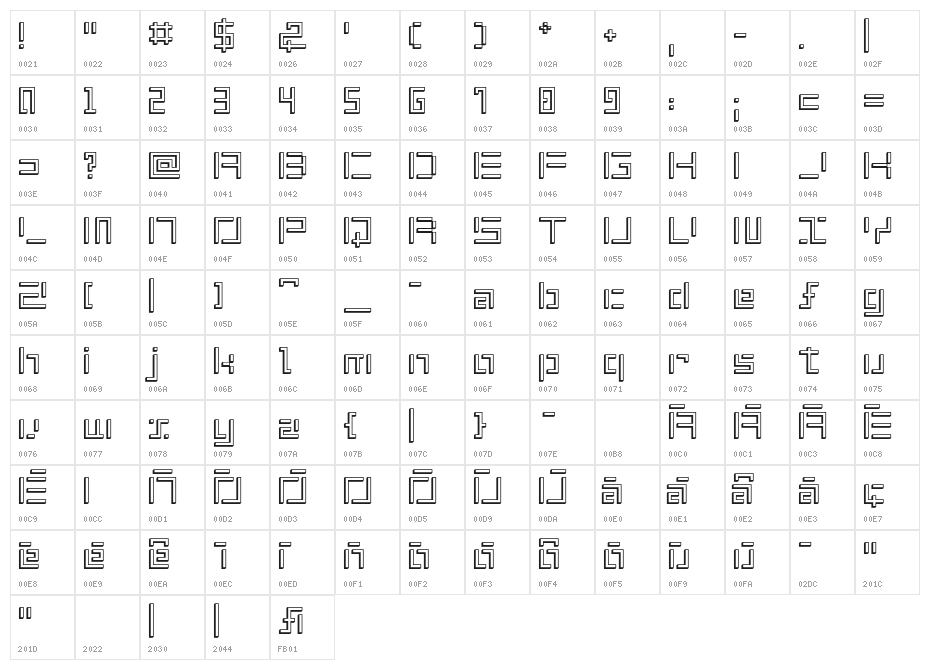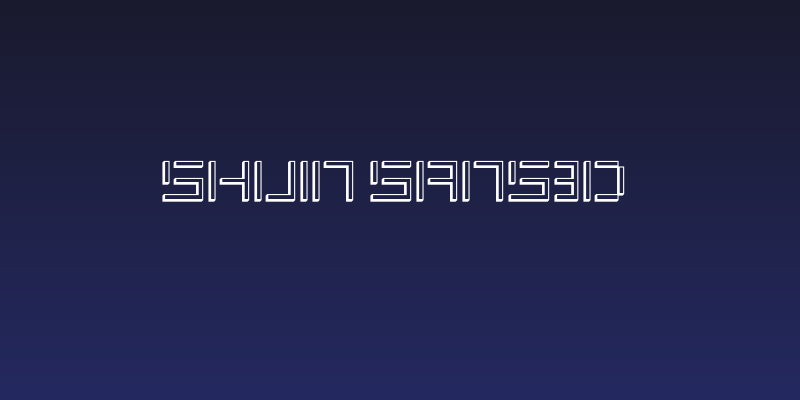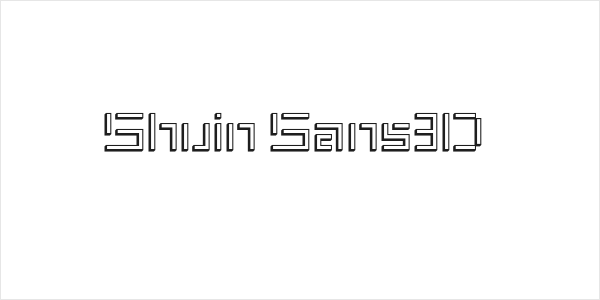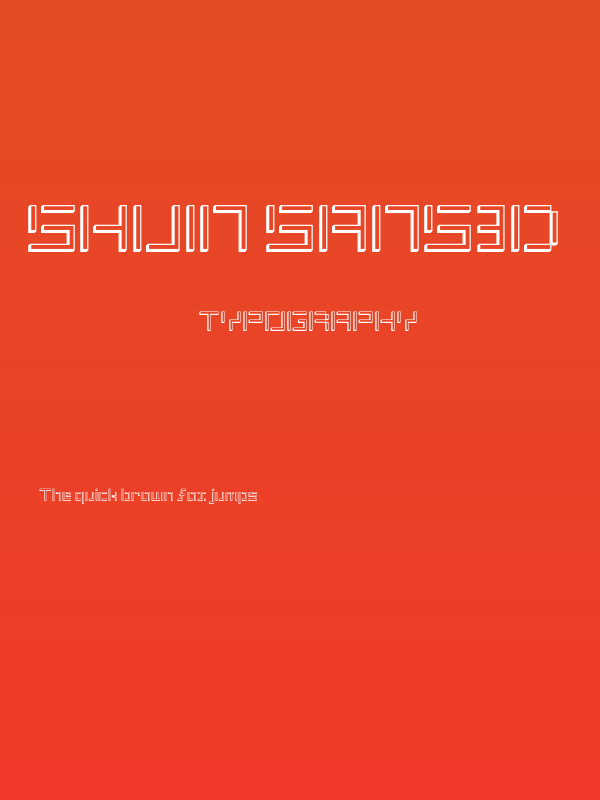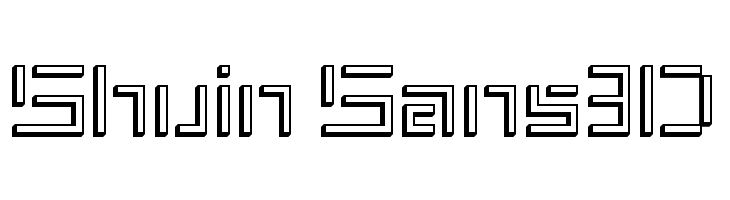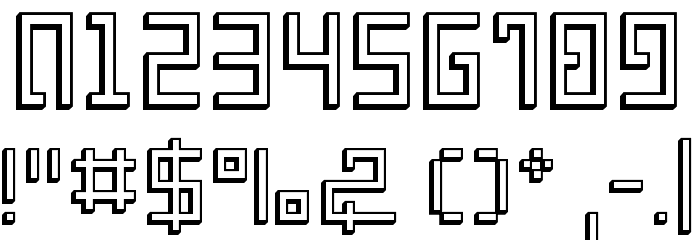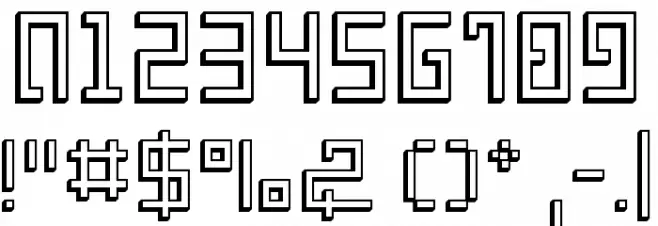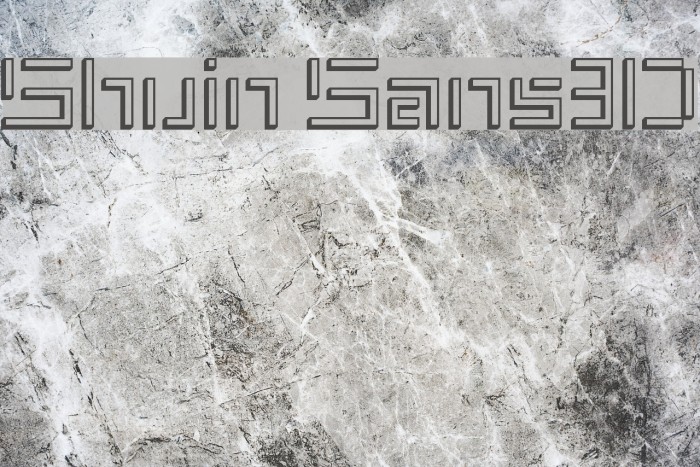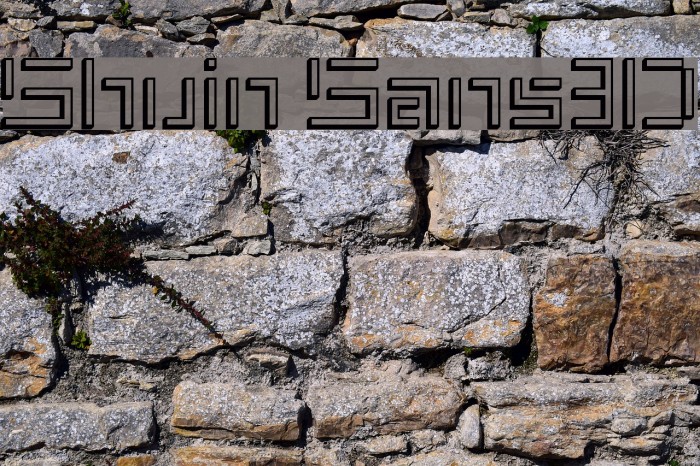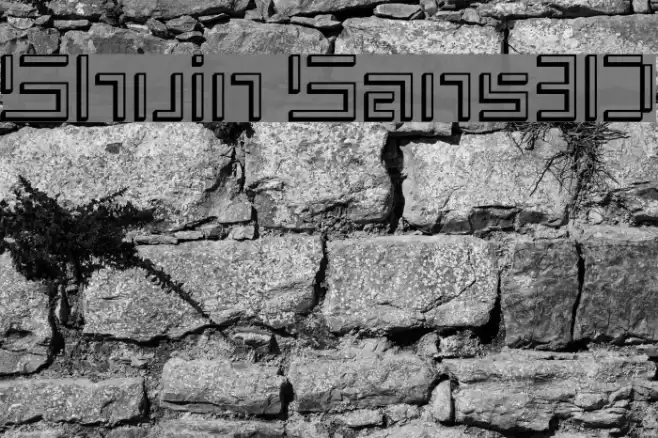
Shuin Sans3D Font
Shuin Sans3D Description
This font features a unique 3D outline style that gives each character a distinct, futuristic appearance. The letters are constructed with a geometric precision, using straight lines and sharp angles to create a sense of depth and dimension. The uppercase and lowercase letters maintain a consistent design, with the lowercase being slightly more compact. Numbers and special characters follow the same stylistic approach, ensuring uniformity across all elements. The font's design is both modern and playful, making it suitable for creative and eye-catching projects.
| Use Case | Logos, Headlines, Posters |
| Proposed Projects | Ideal for digital art, video game design, tech branding, and futuristic-themed posters. |